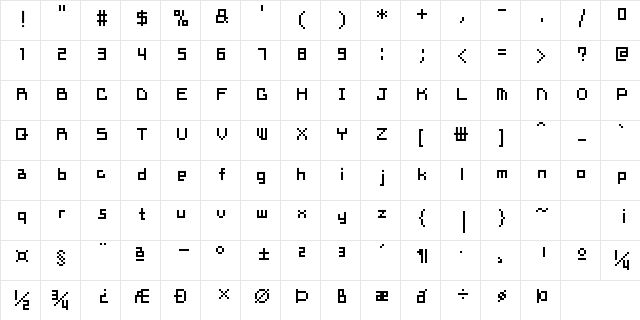
nontoxic_ggoggo Regular
| Foundry | nontoxic_ggoggo |
| Designer | nontoxic |
Design Context for nontoxic_ggoggo Typeface
nontoxic_ggoggo takes a measured approach to typography — its balanced proportions and neutral character make it a reliable workhorse for both digital and print work.